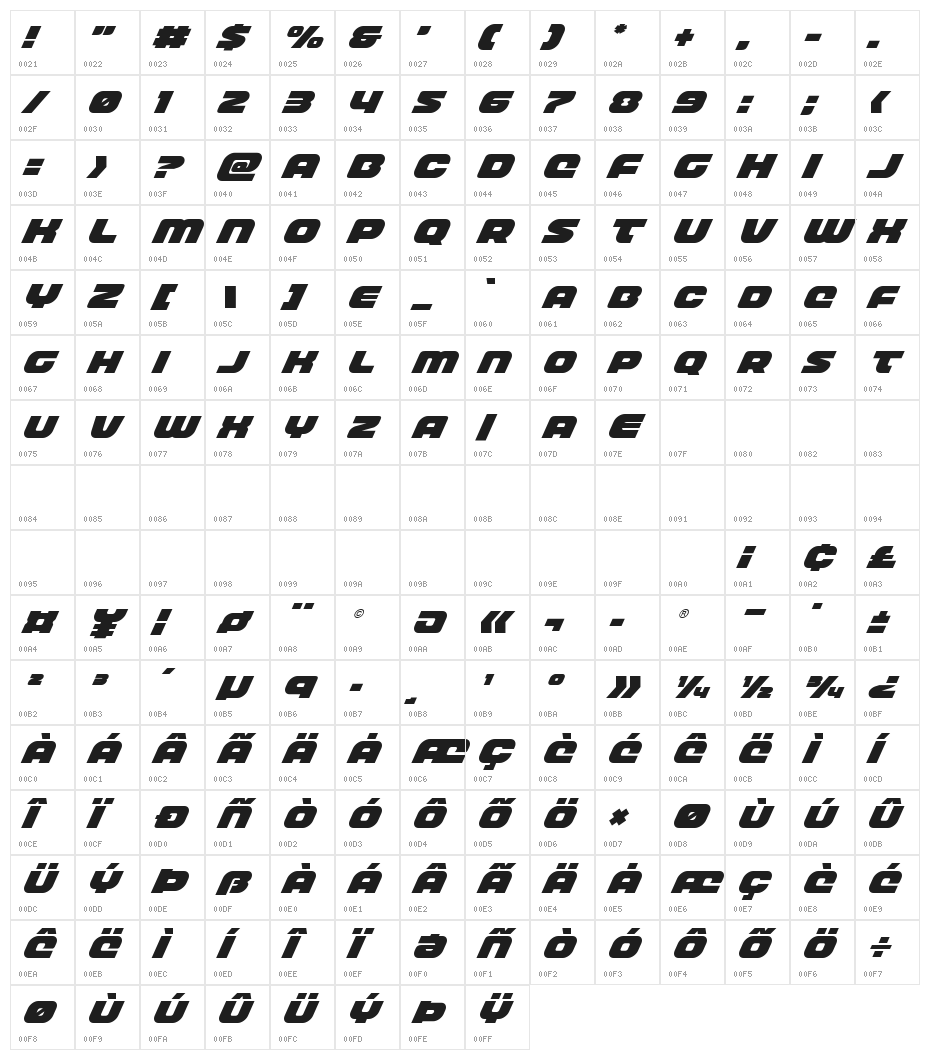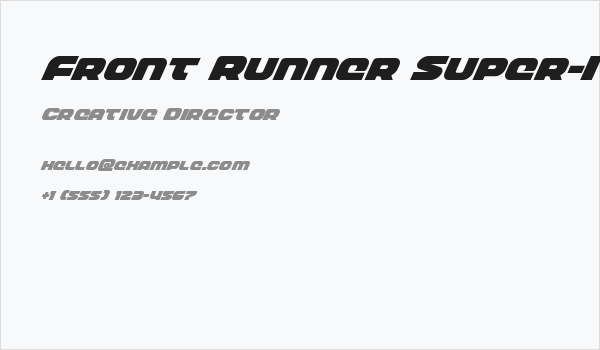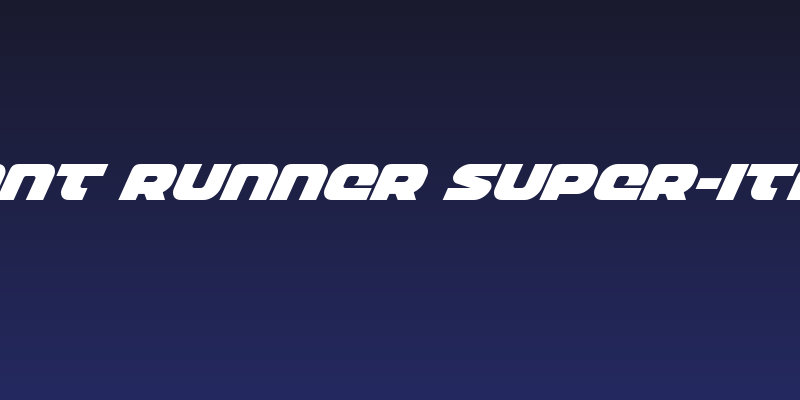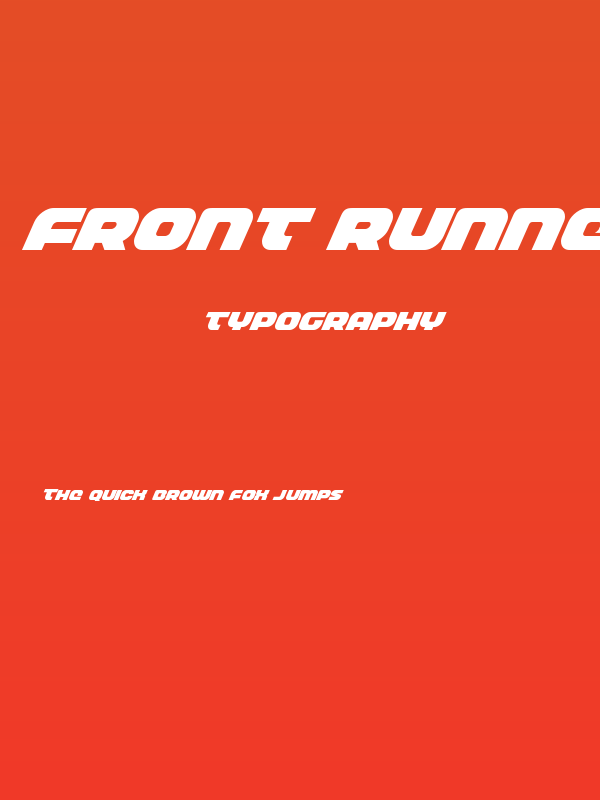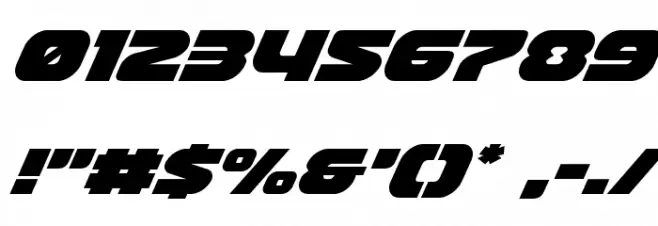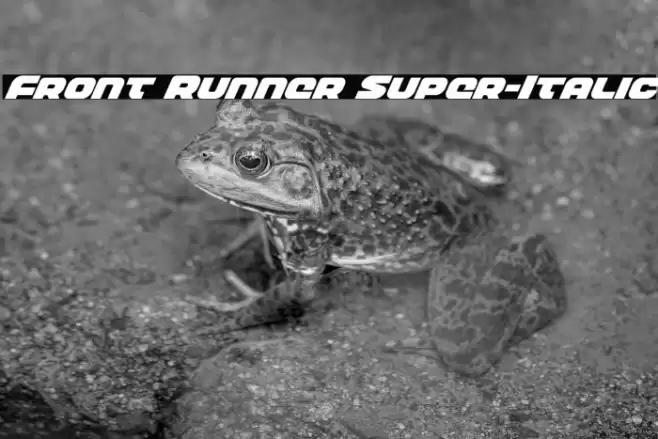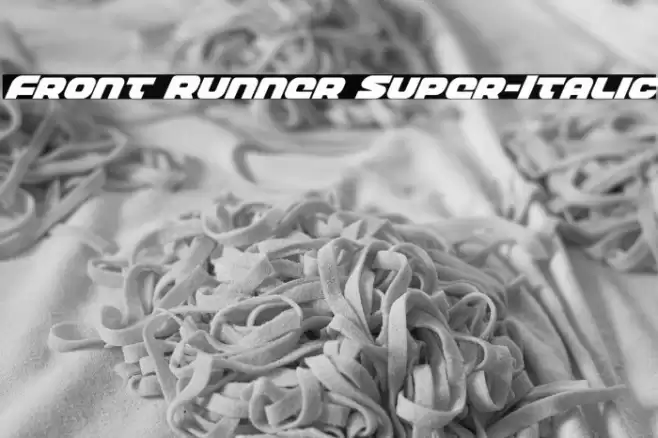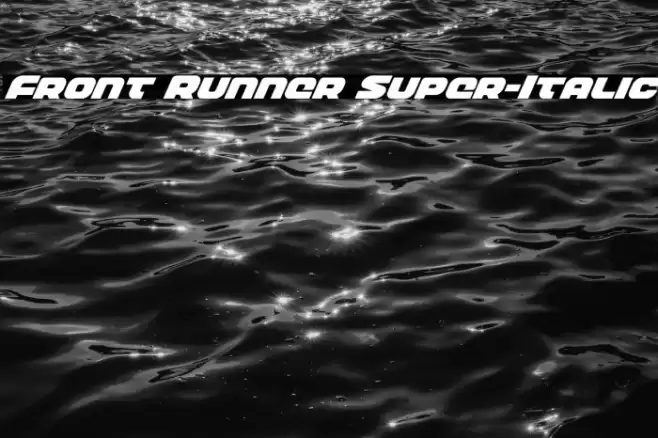
Front Runner Super-Italic Font
This font features a bold, dynamic style with a strong italic slant, giving it a sense of motion and energy. The characters are wide and robust, with a slightly condensed form that maintains readability while emphasizing a modern, sporty aesthetic. The strokes are thick and consistent, providing a high contrast that enhances visibility. The overall design is sleek and futuristic, making it ideal for projects that require a bold statement. The uppercase and lowercase letters are well-balanced, and the numerals are clear and distinct. Special characters are included, maintaining the font's cohesive style.
| Proposed Projects | Ideal for sports branding, dynamic posters, automotive advertisements, and modern logos. |